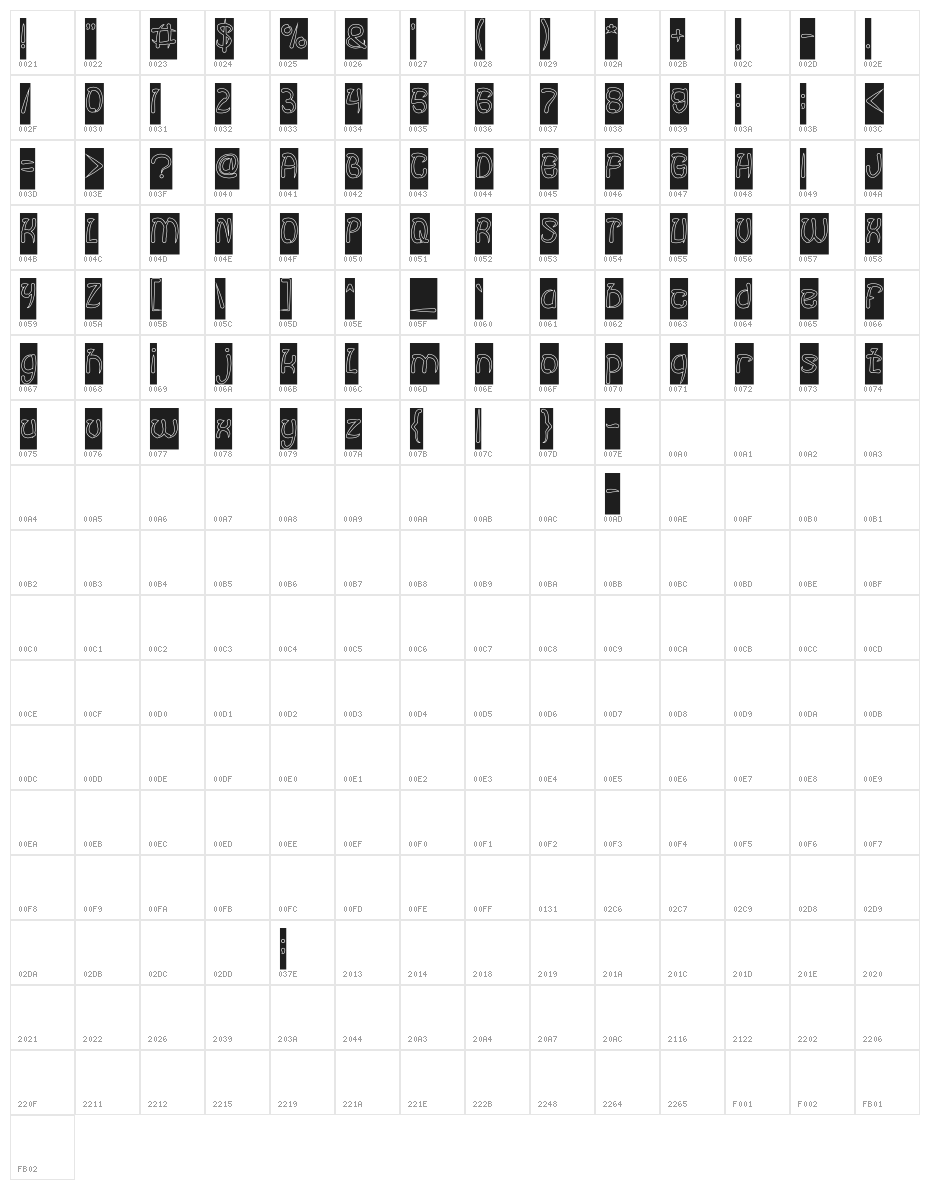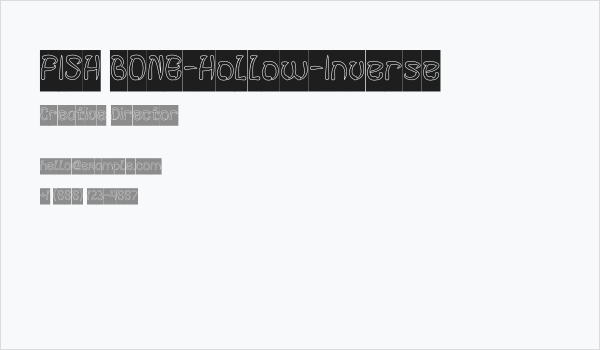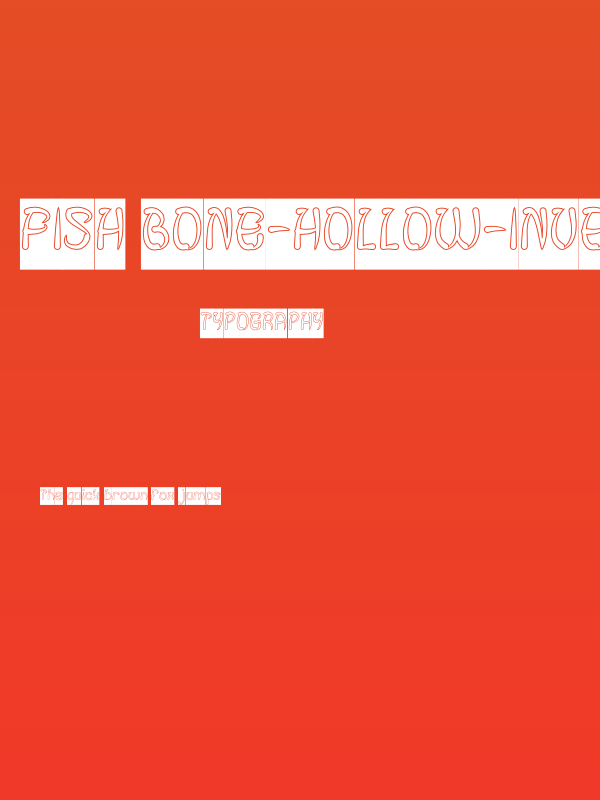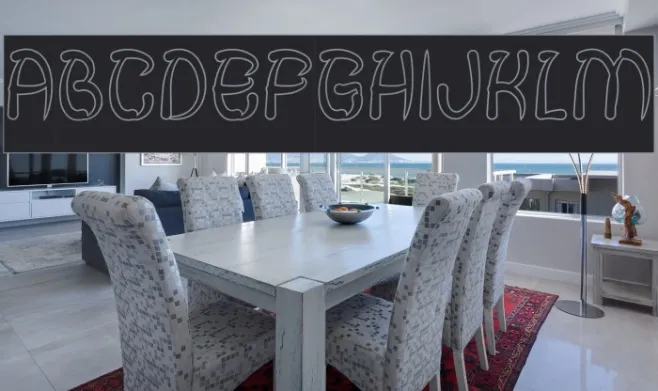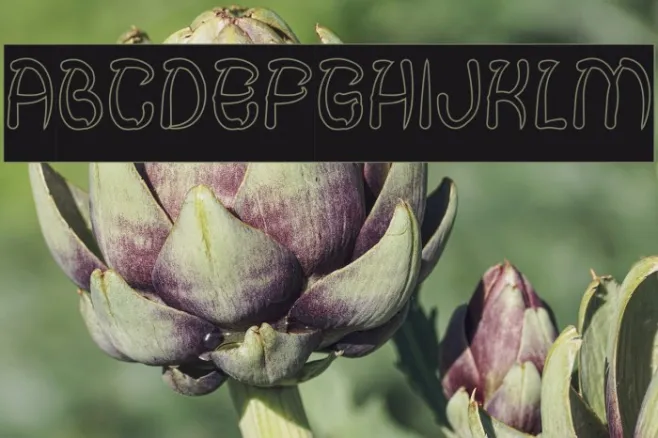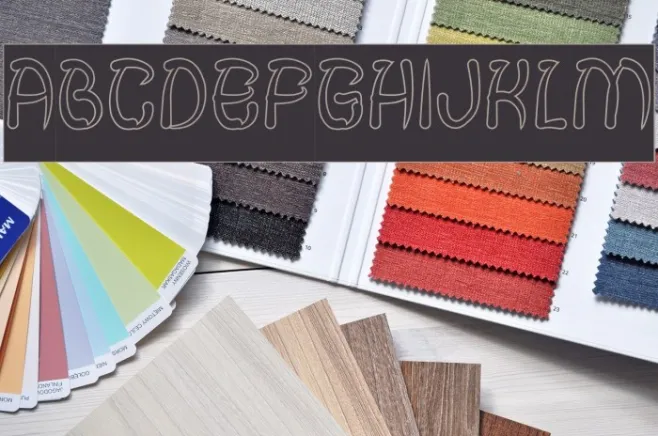
FISH BONE-Hollow-Inverse Font
FISH BONE-Hollow-Inverse Description
This font features a unique hollow design with an inverse style, where the outlines of each character are emphasized, creating a striking visual effect. The uppercase and lowercase letters maintain a consistent flow with rounded edges, giving a playful and approachable appearance. The numbers and special characters follow the same design principles, ensuring uniformity across the entire set. This font's distinct style makes it ideal for creative projects that require a bold and eye-catching typeface.
FISH-BONE-HOLLOW-INVERSE UPPERCASE
FISH-BONE-HOLLOW-INVERSE LOWERCASE
FISH-BONE-HOLLOW-INVERSE OTHER CHARS
| Proposed Projects | Ideal for posters, logos, children's books, and creative branding projects. |